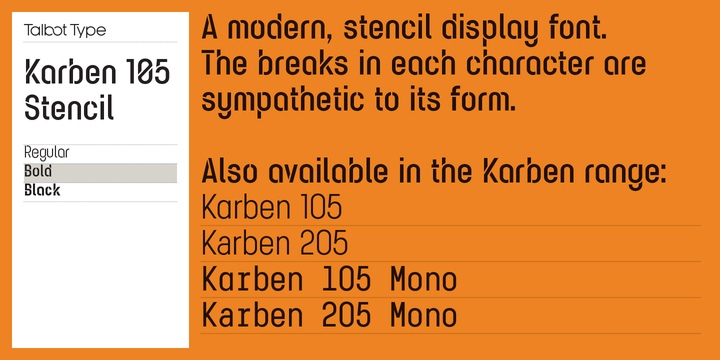
Karben 105 Stencil Font
Karben 105 Stencil Font is ideal for military-themed designs, industrial branding, shipping containers, warehouse signage, tactical equipment labels, urban street art, construction site signs, automotive graphics, security company logos, and manufacturing documentation.
What makes Karben 105 Stencil Font exciting is its authentic military-inspired design that combines functional stencil cuts with bold, commanding letterforms. This powerful typeface delivers immediate visual impact while maintaining the practical readability essential for industrial applications and high-contrast marking systems.
Karben 105 Stencil Font family includes multiple weights from regular to bold, with condensed variations and extended character sets, providing comprehensive options for creating cohesive industrial design systems and military-grade communications.
Karben 105 Stencil Font embodies strength and functionality with its precisely engineered stencil bridges and robust character construction. This versatile typeface successfully bridges the gap between utilitarian necessity and contemporary design aesthetics, making it perfect for brands requiring authoritative visual presence with industrial authenticity.
The comprehensive character collection includes uppercase and lowercase letters, numerals, punctuation marks, and specialized symbols commonly used in industrial and military contexts. Karben 105 Stencil Font supports extensive language coverage, making it suitable for international logistics and defense applications.
Karben 105 Stencil Font performs exceptionally in both traditional stenciling applications and modern digital environments. Whether spray-painted on concrete surfaces or displayed on high-resolution screens, this robust typeface maintains its commanding presence and functional clarity.
Industrial designers and military contractors appreciate how Karben 105 Stencil Font combines authentic stencil aesthetics with contemporary typographic standards. Its versatility allows seamless integration across traditional marking applications and modern brand communications.
Whether you're designing tactical equipment graphics, creating industrial safety signage, or developing military-inspired brand identities, Karben 105 Stencil Font provides the authoritative presence and functional reliability essential for demanding applications.